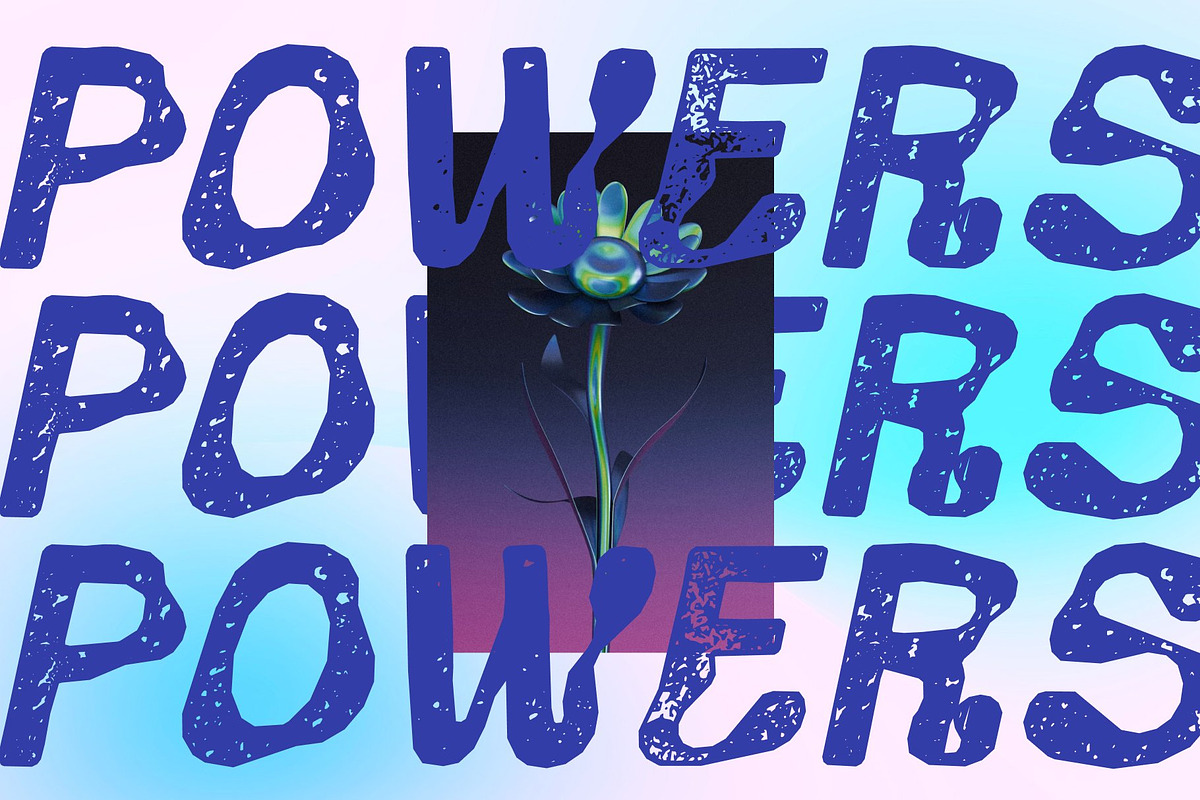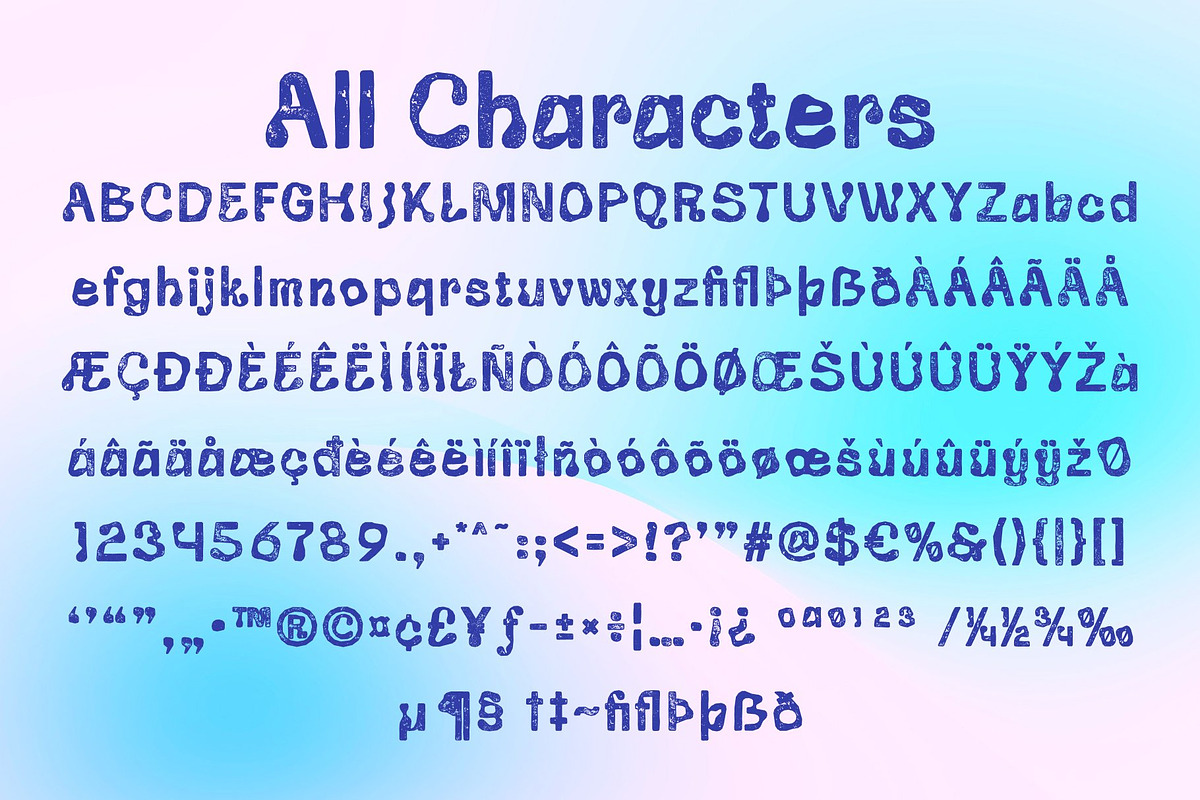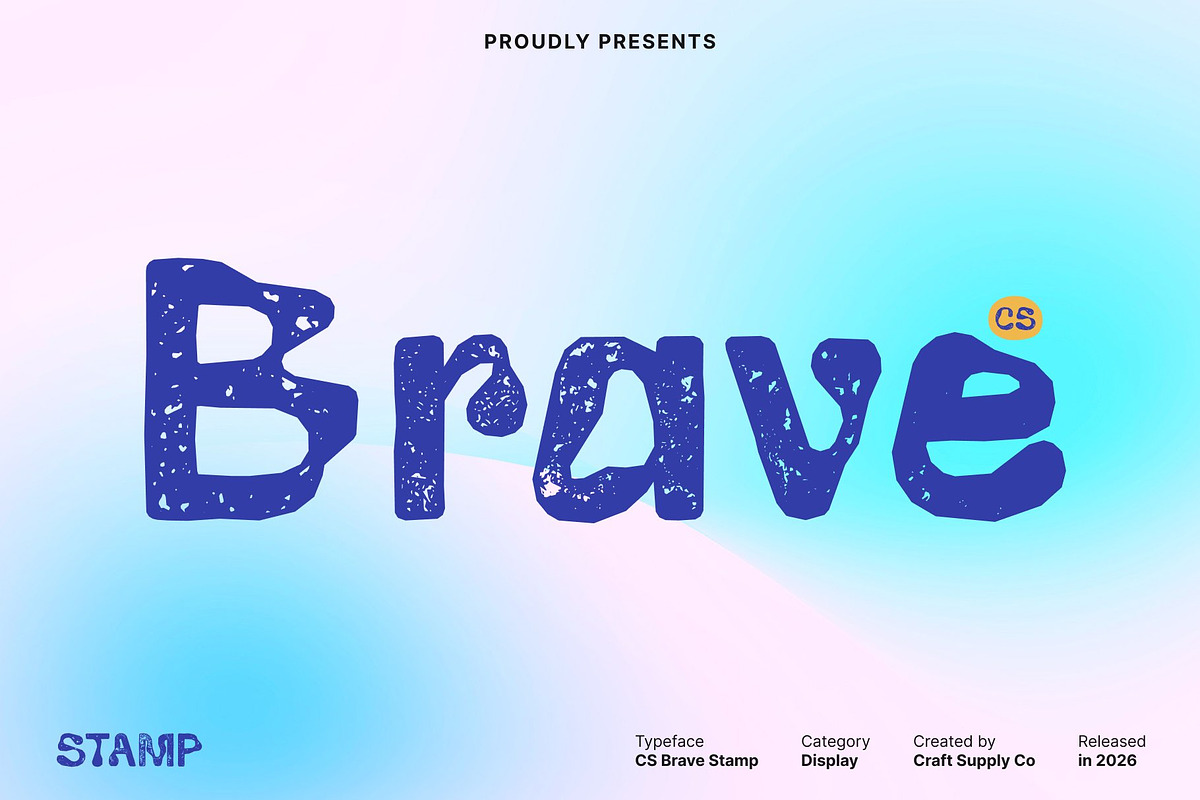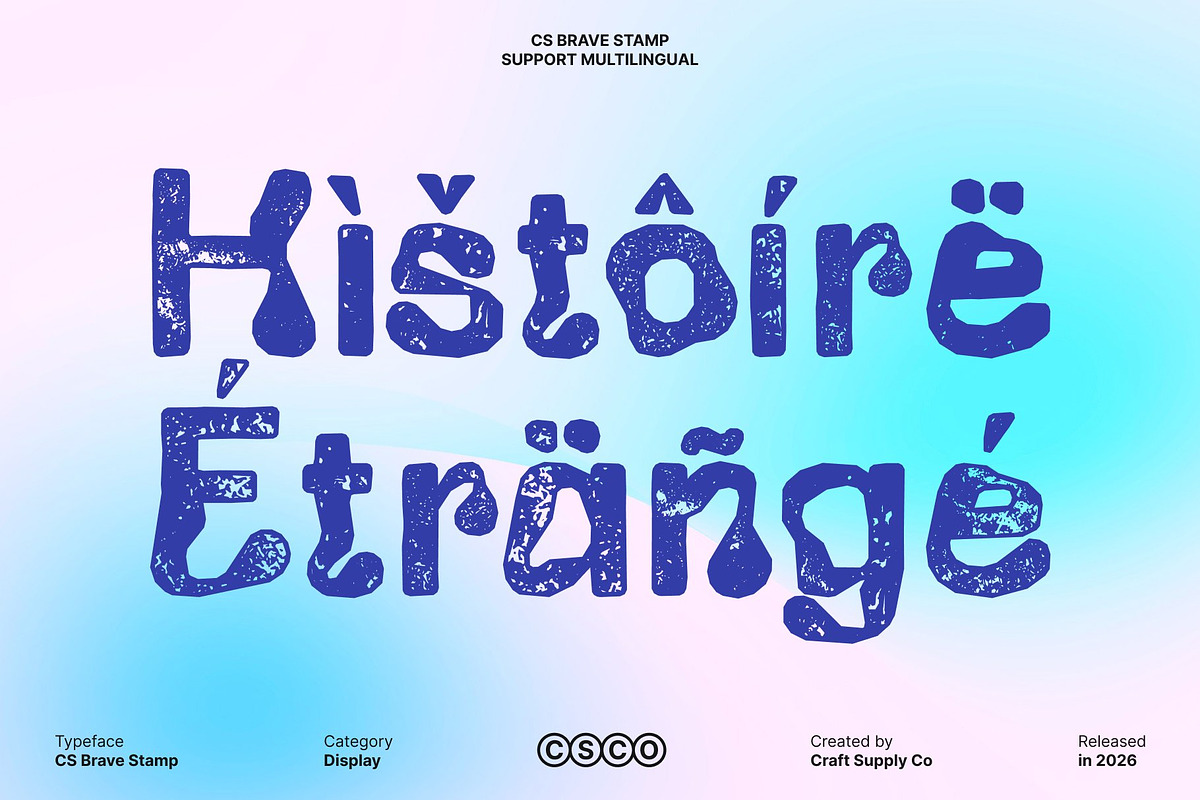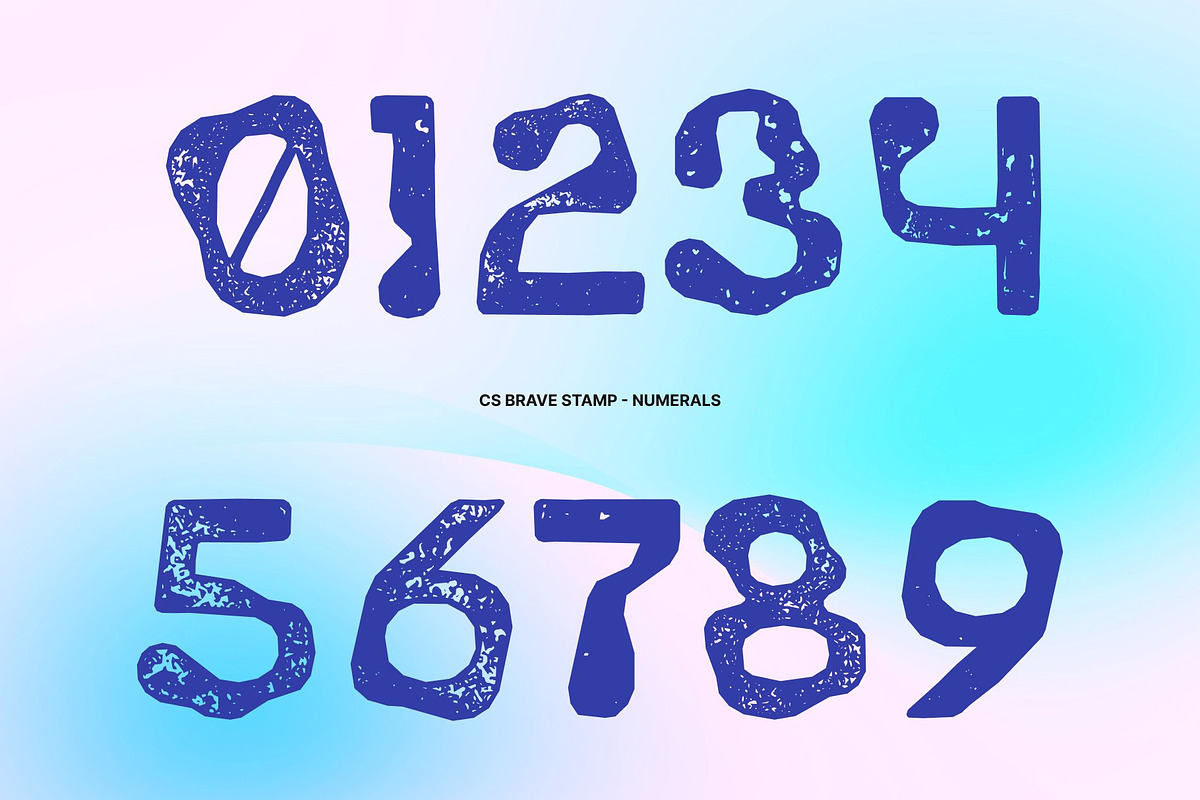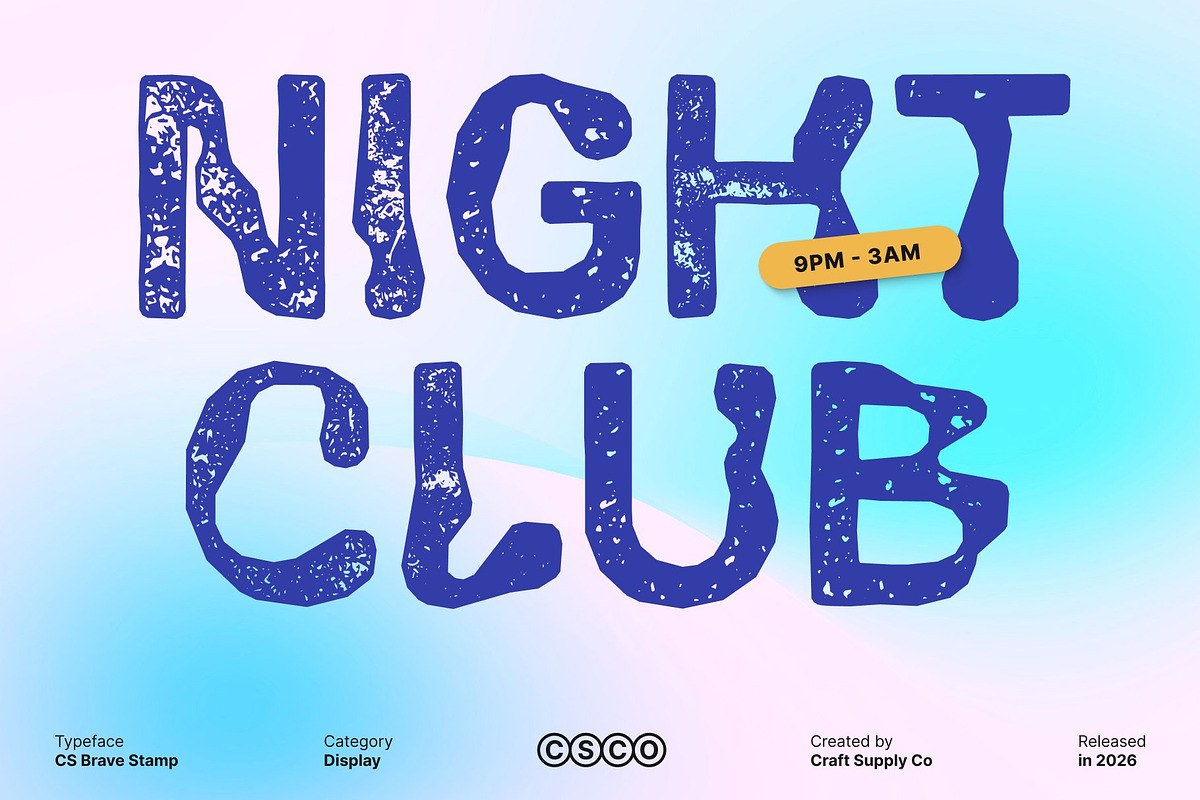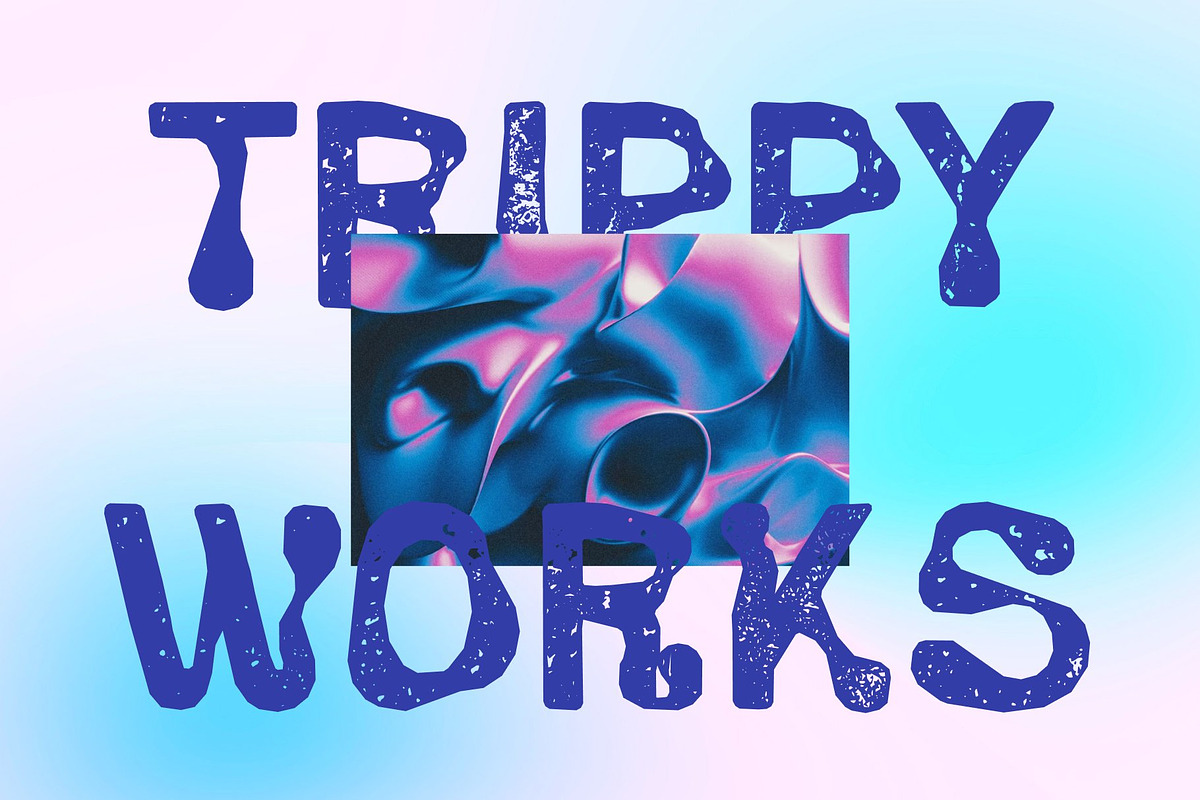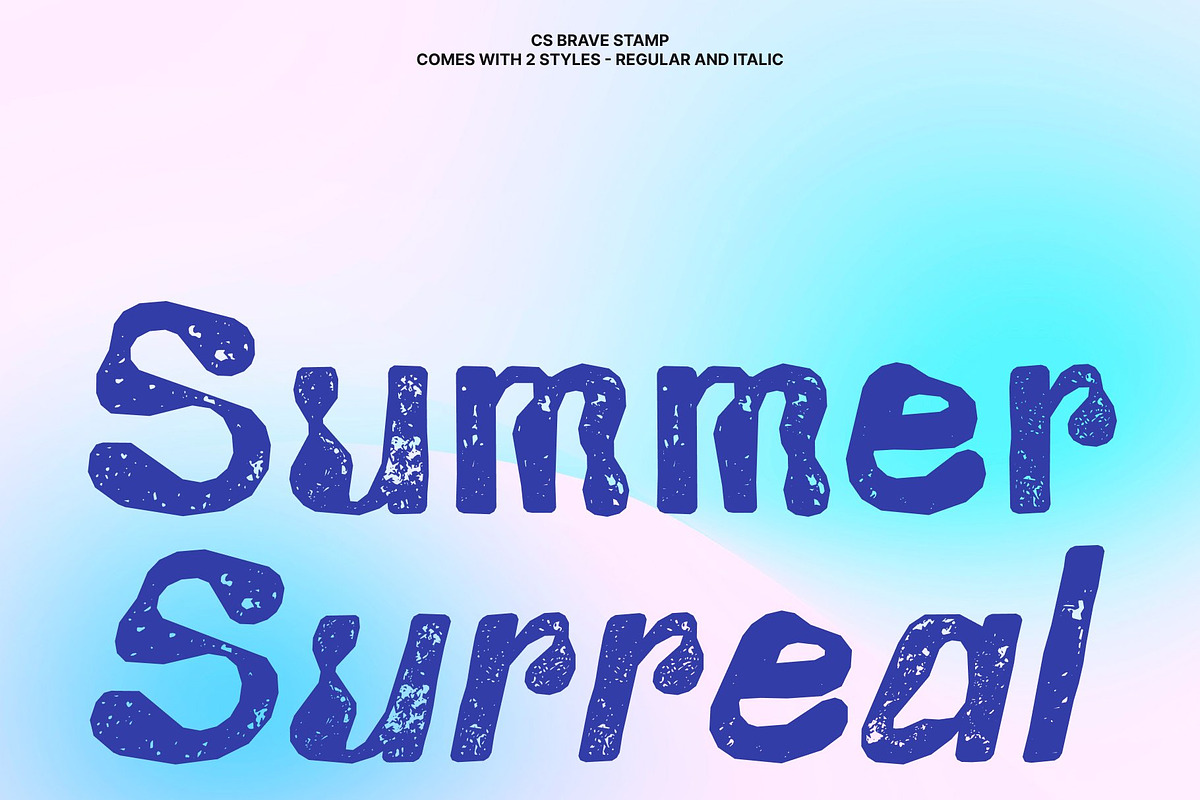
CS Brave Stamp
CS Brave Stamp – Trippy Psychedelic Font with Raw Textured Energy
Psychedelic Vibrance with a Stamped Edge This amplifies its trippy, 60s-inspired aesthetic with a gritty stamped texture that adds depth and analog character. The curved, wavy, and distorted letterforms remain bold and hypnotic, now enhanced with subtle ink variations and distressed edges that evoke vintage screen-printed posters and hand-pressed artwork.
Dynamic Distortion with Organic Grit The font’s expressive, unconventional shapes feel even more alive with the stamped treatment. The fluid warps and exaggerated curves gain tactile dimension, blending psychedelic movement with a raw, handcrafted finish. This fusion creates a visually immersive effect that feels both retro and rebelliously artistic.
Bold, Funky, and Impossible to Ignore This font thrives on attention-grabbing energy. Its vibrant personality, combined with textured imperfection, gives designs a loud, underground poster aesthetic. The stamped effect softens digital sharpness, making compositions feel authentic, nostalgic, and richly layered.
Perfect for Music, Art, and Creative Expression Ideal for music festival posters, album covers, art events, streetwear branding, and experimental campaigns, delivers fearless visual impact. It captures the spirit of psychedelic culture while adding a tactile edge perfect for projects that demand boldness, creativity, and unforgettable character.
CS Brave Stamp Regular
CS Brave Stamp Italic